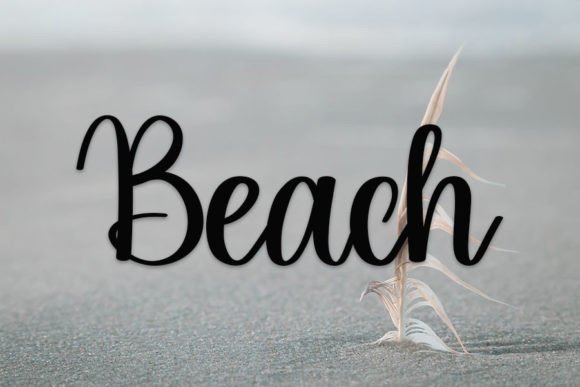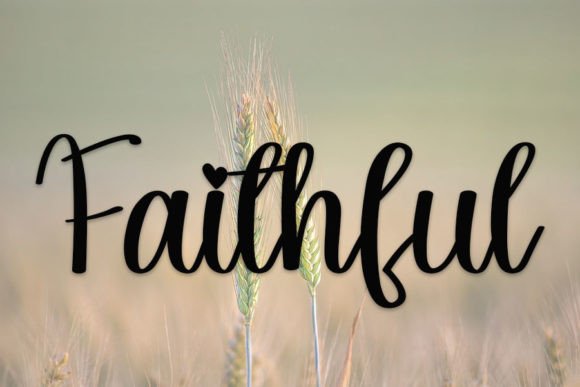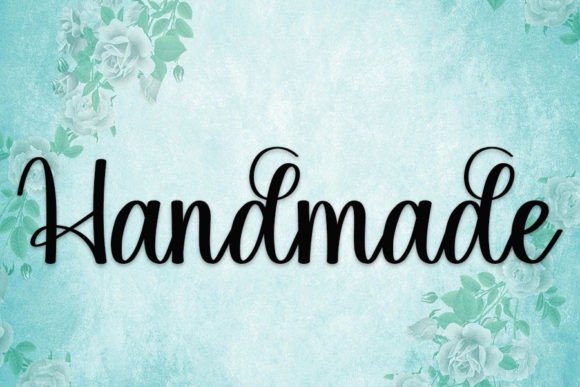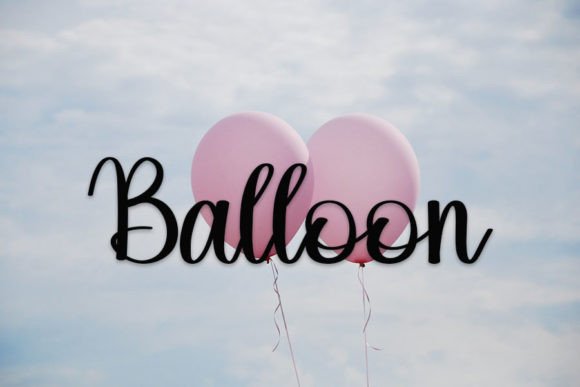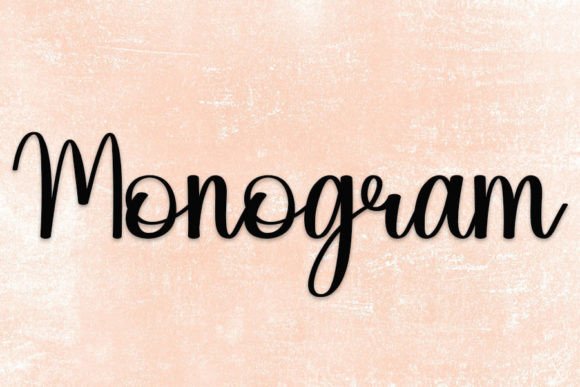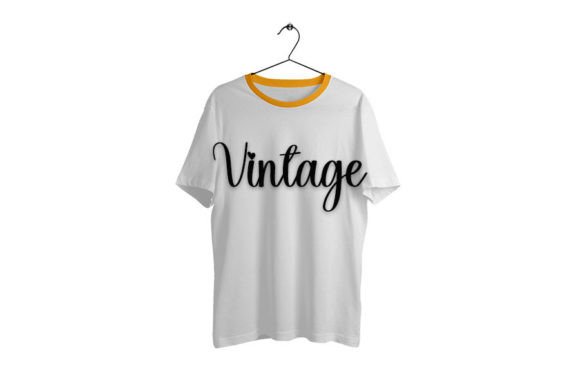
Candid Font: Elevate Your Designs with Elegance and Timeless Style
Are you on the hunt for a font that exudes elegance, sophistication, and a touch of handmade charm? Look no further than Candid, a beautiful handwritten font that is sure to capture your heart. With its incredibly distinct and timeless style, Candid is the perfect addition to any design project, from crafting and stationery to digital media and branding.
The Beauty of Candid Font
Candid is a neat and beautiful handwritten font that boasts an elegant touch, making it ideal for designers and crafters who want to add a personal and sophisticated flair to their work. Its unique and distinctive style sets it apart from other fonts, ensuring that your designs will stand out from the crowd.
Key Features of Candid Font
- Handwritten with love: Candid is a carefully crafted handwritten font that mimics the natural flow and imperfections of handwriting, giving it a warm and personal feel.
- Elegant and sophisticated: With its flowing lines and delicate strokes, Candid exudes elegance and sophistication, making it perfect for high-end designs and projects.
- Distinct and timeless style: Candid’s unique style is both classic and modern, ensuring that your designs will remain timeless and relevant for years to come.
- Versatile and adaptable: Whether you’re working on a digital project, crafting, or stationery, Candid is versatile enough to adapt to any design need.
Uses for Candid Font
Candid is a versatile font that can be used in a wide range of design projects, including:
- Branding and logos: Create a lasting impression with Candid’s elegant and sophisticated style, perfect for luxury brands and businesses.
- Stationery and invitations: Add a personal touch to your stationery, invitations, and greeting cards with Candid’s beautiful handwritten style.
- Crafting and DIY projects: Elevate your crafting and DIY projects with Candid’s unique and charming style, perfect for titles, headings, and decorative elements.
- Digital media: Use Candid in your digital designs, such as social media graphics, blog posts, and website headers, to add a touch of elegance and sophistication.
Why Choose Candid Font?
With so many fonts available, why choose Candid? Here are just a few reasons why Candid stands out:
- Unique and distinctive style: Candid’s elegant and sophisticated style sets it apart from other fonts, ensuring that your designs will stand out.
- High-quality design: Candid is carefully crafted to ensure that every letter and stroke is perfect, giving you a high-quality font that will elevate your designs.
If you’re looking for a font that exudes elegance, sophistication, and a touch of handmade charm, look no further than Candid. With its incredibly distinct and timeless style, Candid is the perfect addition to any design project. Whether you’re a designer, crafter, or DIY enthusiast, Candid is sure to capture your heart and elevate your designs to new heights.
Get Ready to Fall in Love with Candid Font
So why wait? Fall in love with Candid’s beautiful handwritten style and use it to create spectacular designs that will leave a lasting impression. With its versatility, elegance, and timeless style, Candid is the perfect font for anyone looking to add a touch of sophistication and charm to their designs.